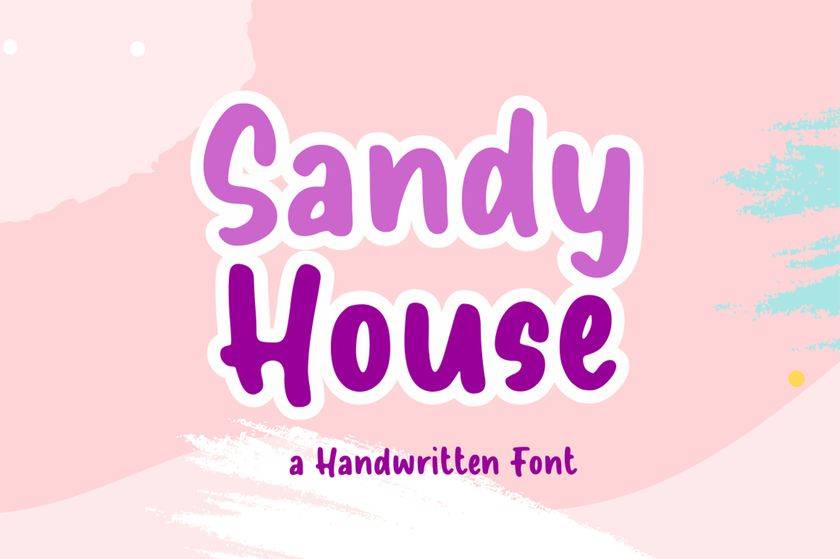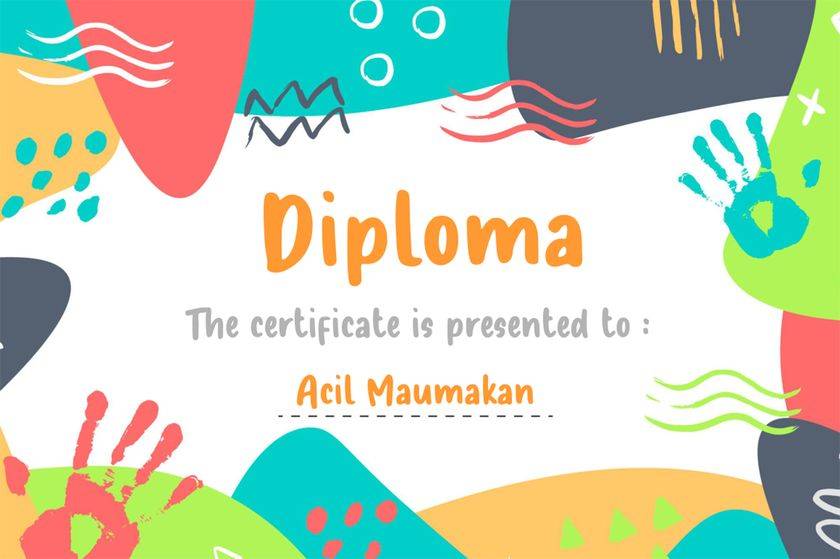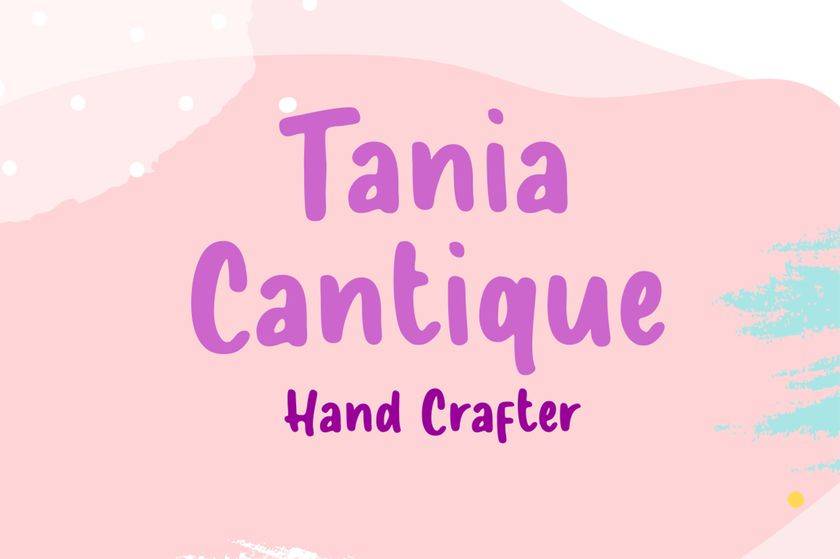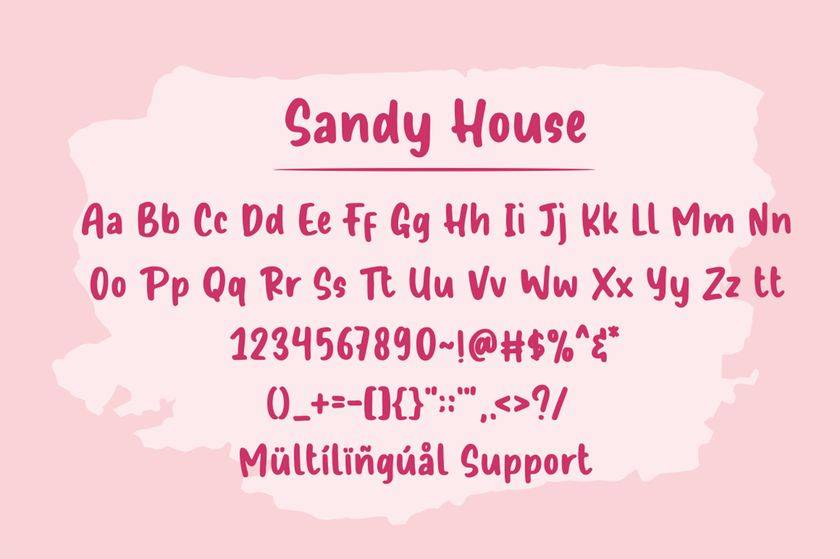
Sandy House is a playful and casual handwritten sans serif font with a warm, friendly feel. Its bold weight and rounded strokes create a welcoming and approachable look, making it ideal for informal branding, children’s books, and fun packaging designs. This font works well where a personal, cheerful touch is needed to connect with audiences in a lively and engaging way.
Sandy House Font
About Sandy House Font
| Font family | Sandy House Font |
| Release date | 2020-10-08 |
| Designer | Muhamad Yusron Billah |